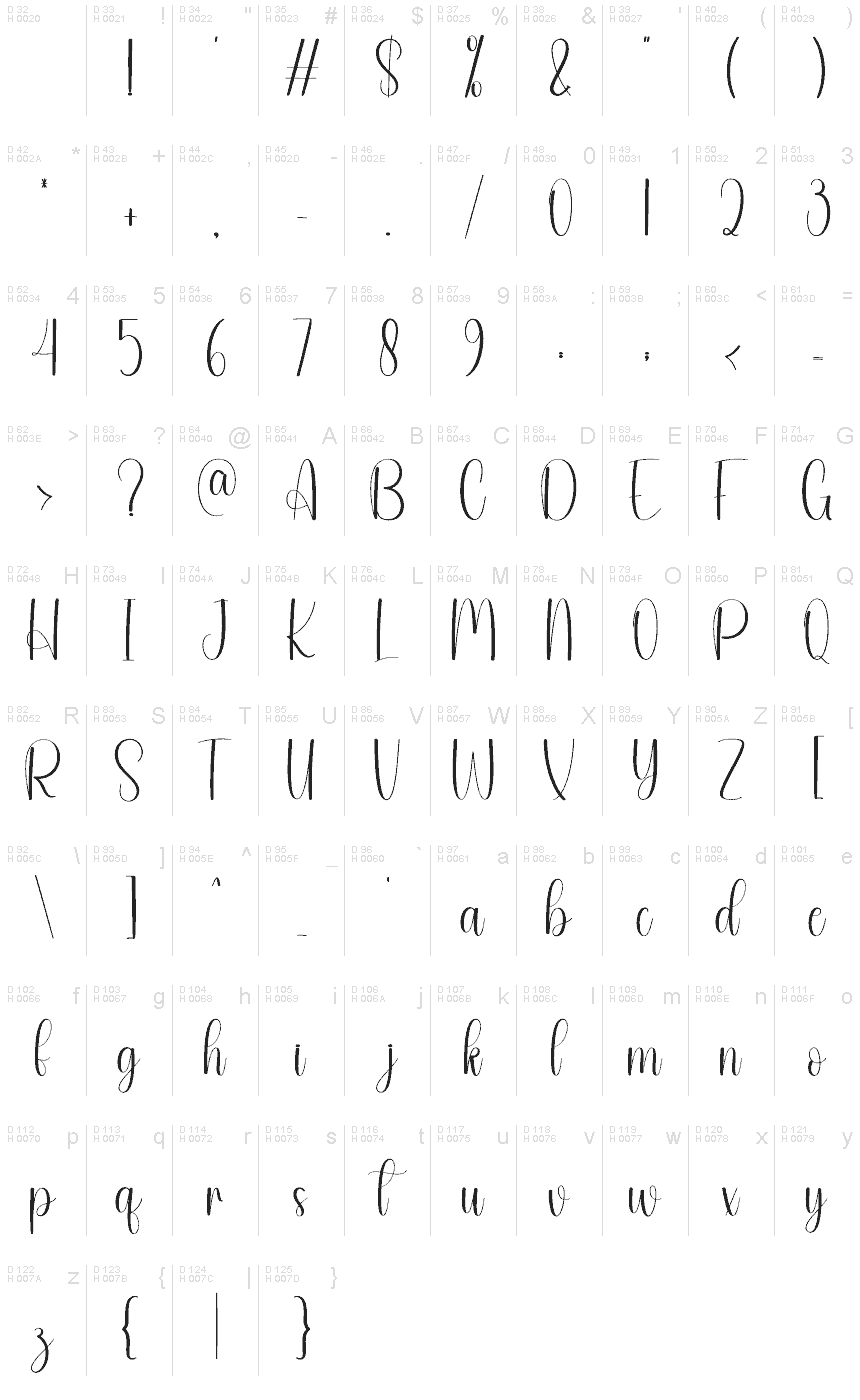
Dailylife
Dailylife font is a free calligraphy font crafted by Andi Moz with a light weight and condensed, flowing letters. It has an elegant and graceful appeal with ornamental vibes and a sophisticated charm. The designer presents to you this beauty with all characters that have a natural look.